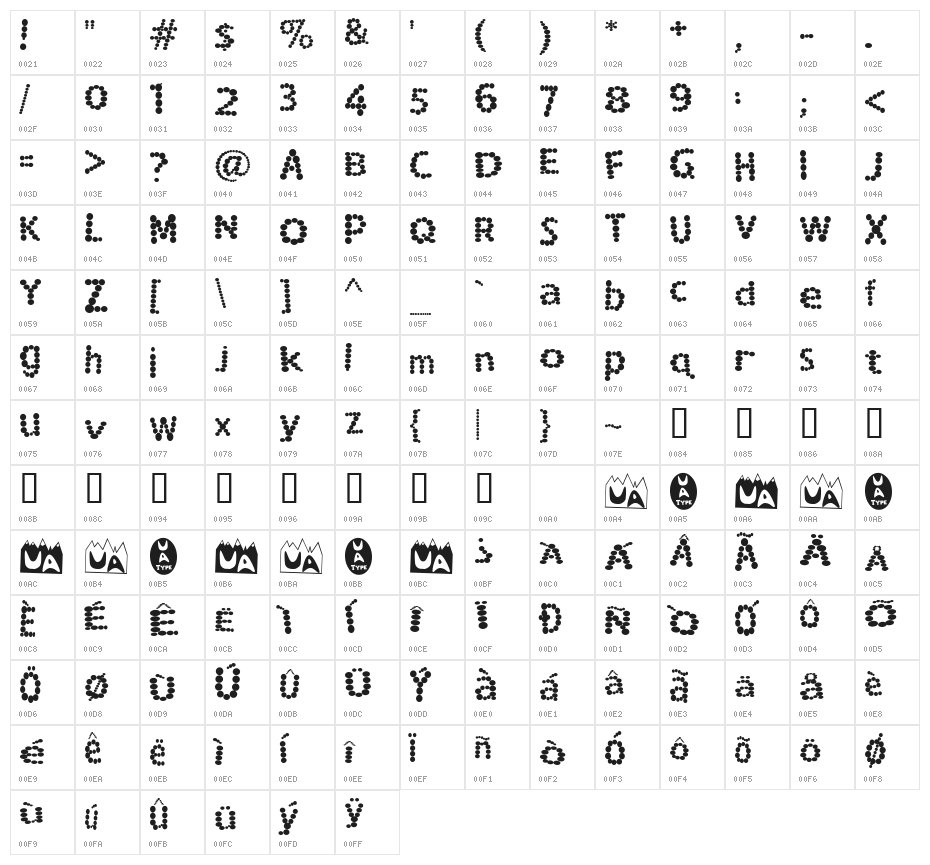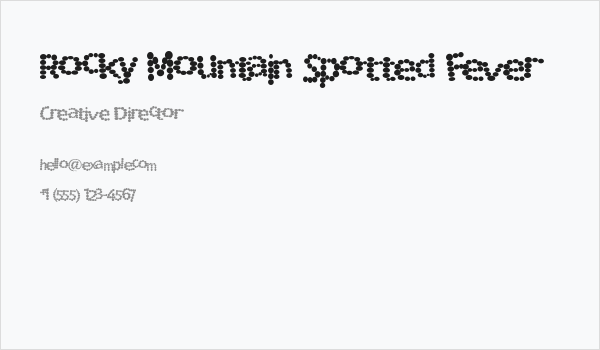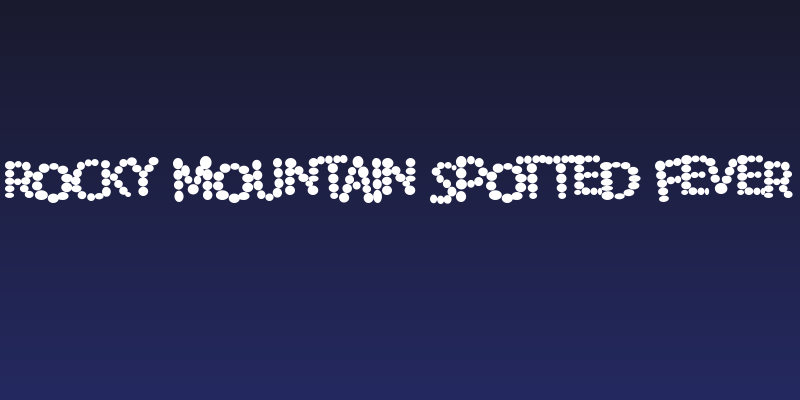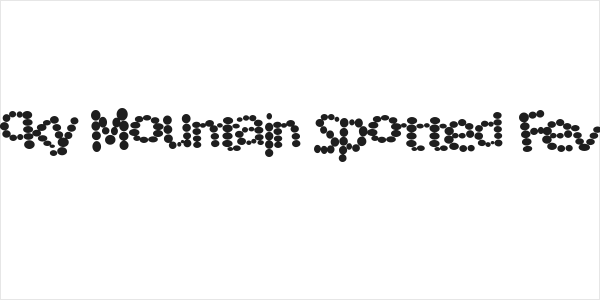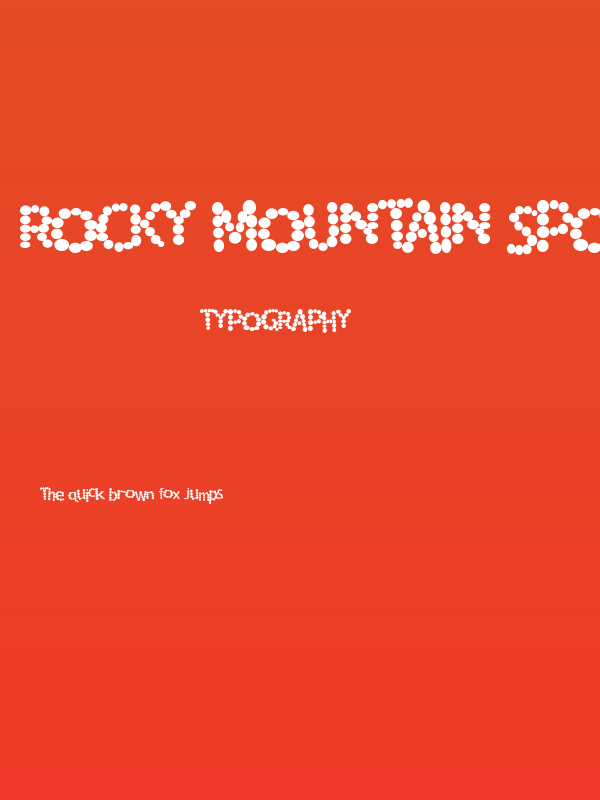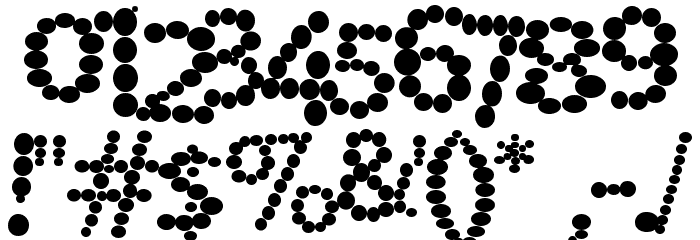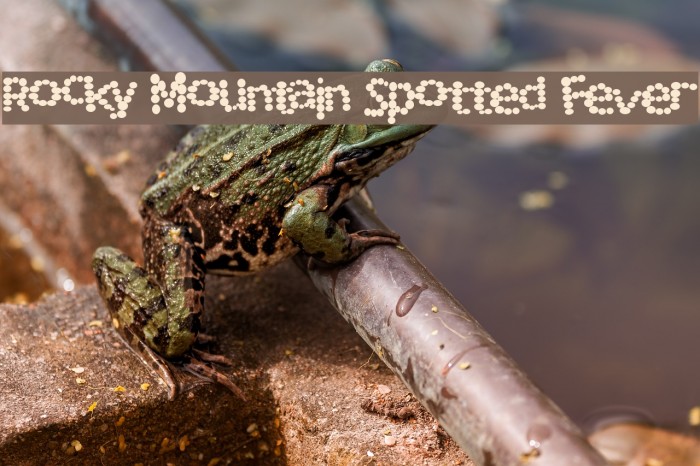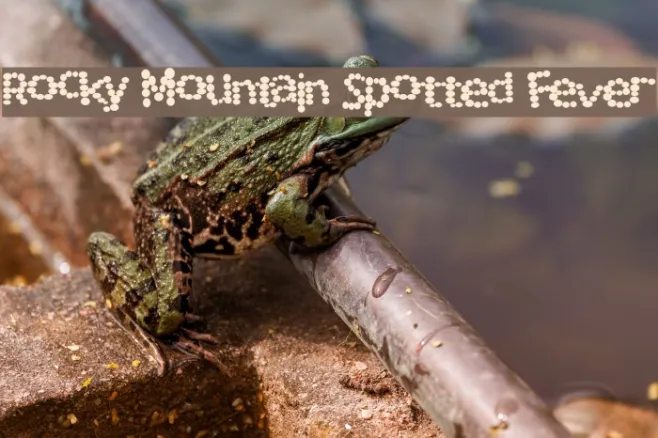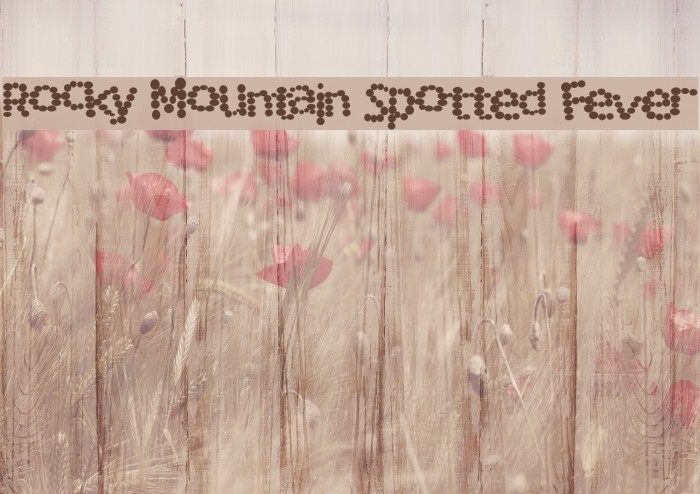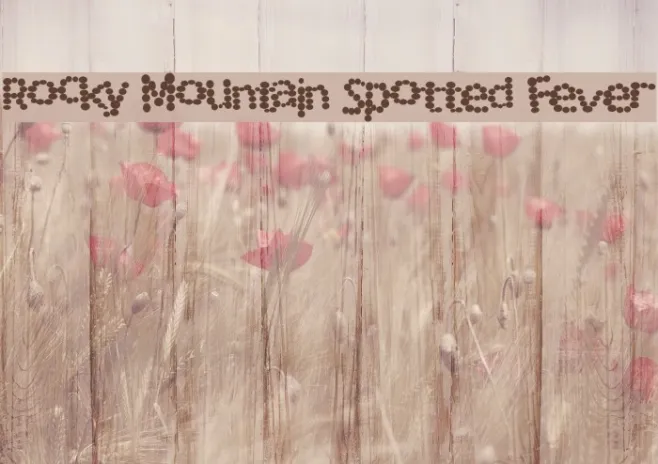
Rocky Mountain Spotted Fever Font
Rocky Mountain Spotted Fever Description
This font is a distinctive and playful design composed entirely of circular dots forming each character. The dots vary slightly in size, creating a textured and dynamic appearance. The overall look is bold and eye-catching, with a unique aesthetic that stands out in any context. The characters are well-defined despite the unconventional construction, maintaining readability while offering a creative twist. This font is ideal for projects that require a fun and engaging visual element, such as children's books, playful branding, or artistic posters. Its decorative nature makes it less suitable for body text but perfect for headlines and logos where a strong visual impact is desired.
| Proposed Projects | Children's books, playful branding, artistic posters, headlines, logos. |